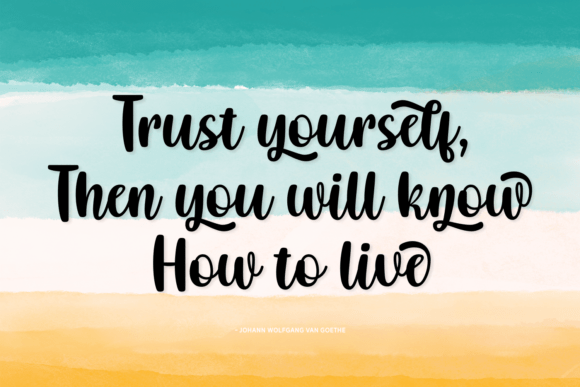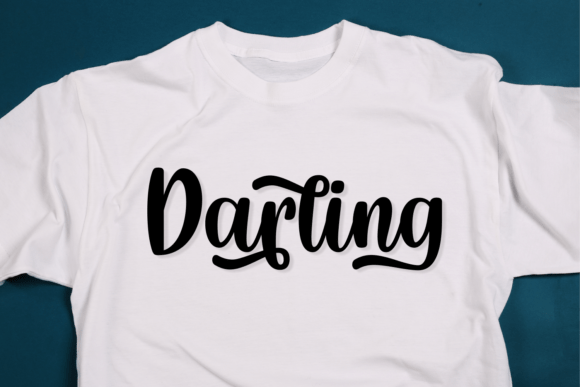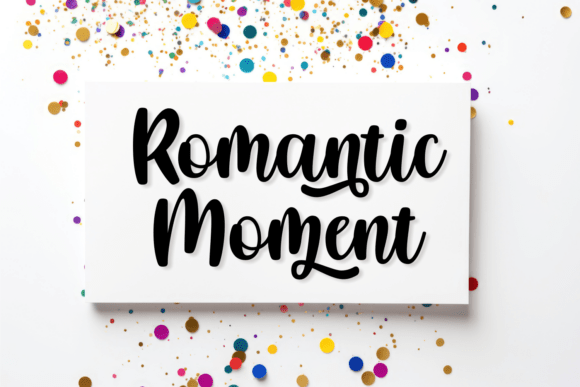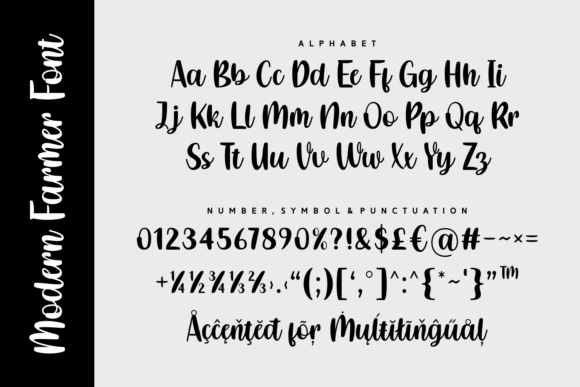
Introduction to Modern Farmer Font
As designers, we’ve all been there – staring at a blank canvas, waiting for the perfect font to bring our creative project to life. The right typeface can make all the difference, elevating a simple design into a stunning work of art. For those looking to add a touch of rustic charm to their next project, we’re excited to introduce the Modern Farmer Font – a bold script font that’s perfect for farm-to-table branding, product packaging, and more.
This free download is a game-changer for designers, offering a high-quality design resource that’s both versatile and eye-catching. With its chunky strokes, smooth curves, and beautiful swashes, the Modern Farmer Font is ideal for creating a confident, handcrafted feel that’s sure to grab attention. Whether you’re working on a logo, signage, or lifestyle quotes, this font is a must-have in your design arsenal.
Key Features of Modern Farmer Font
- High-quality design resource with a unique, rustic feel, perfect for creative projects.
Honest Review: Modern Farmer Font
I recently stumbled upon the Modern Farmer Font and I have to say, it’s been a game-changer for my creative projects. The font is perfect for adding a touch of rustic charm to any design, from brochures to website headers.
- ✨ Great for creative projects that need a touch of modern farmhouse style
- ⚠️ Limited character set, may not be suitable for long-form text
- ⚠️ May not be as versatile as other fonts, but perfect for specific design needs
Overall, I’m really impressed with the Modern Farmer Font. It’s a high-quality design resource that’s perfect for adding a touch of modern farmhouse style to any design project. With a transparent background and high-quality design, it’s a great addition to any design library.
The Modern Farmer Font is perfect for creative projects, such as designing a website, brochure, or social media graphics. It’s also great for presentations, documents, and other business materials that require a modern and professional look.